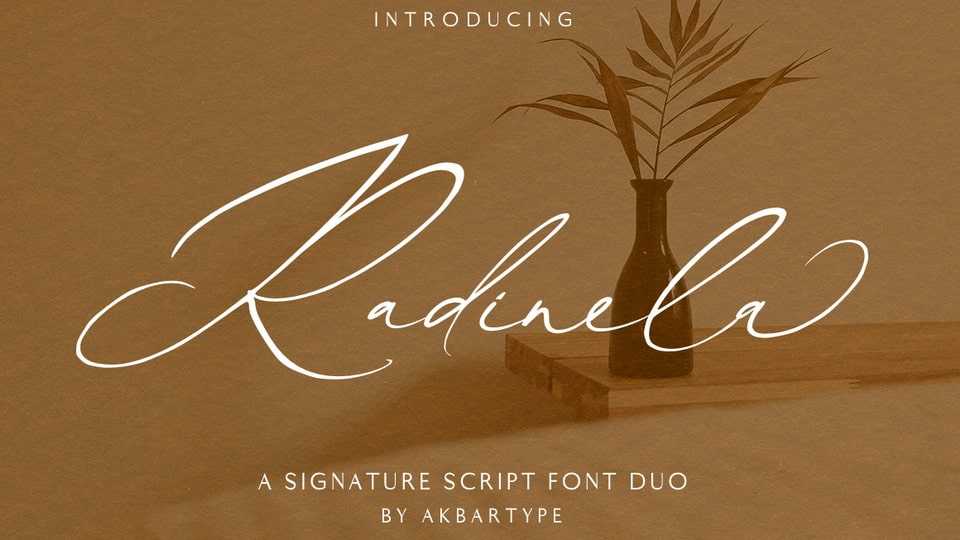
Download Radinela font a gorgeous and simple signature script and sans serif typeface. Radinela font is contemporary and fashionable. This elegant font is legible and looks great as a headline or in an introductory text.
Designer: Akbartype